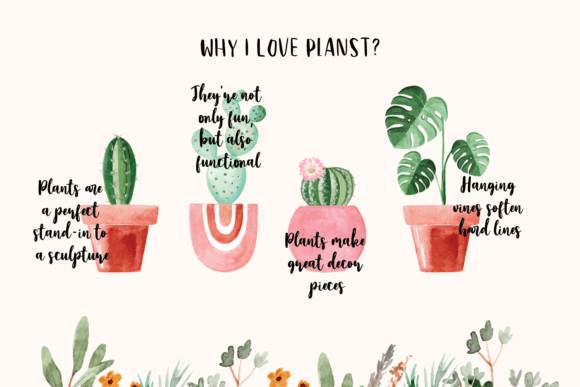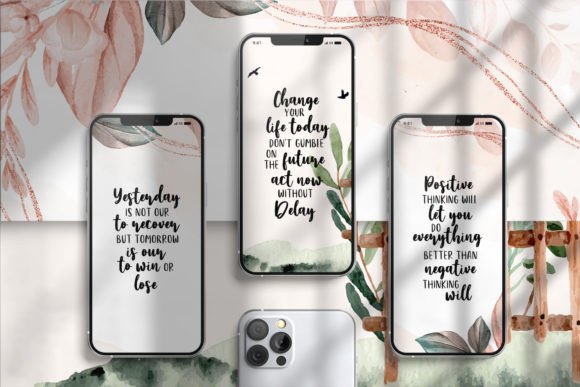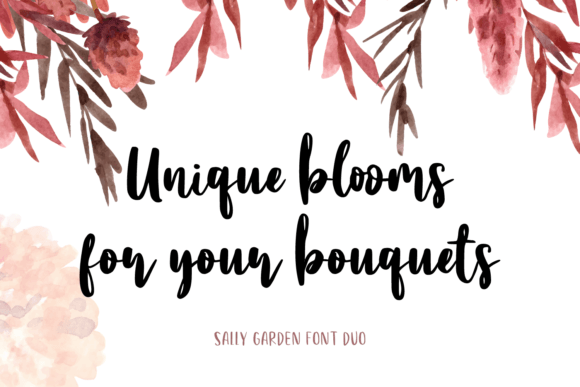
Introduction to Sally Garden Font
Sally Garden is a sweet handwritten font duo (script and sans).
It has beautiful and well-balanced characters and as a result, it matches a wide pool of designs Add it to your most creative ideas and notice how it makes them come alive.
Key Features of Sally Garden Font
Why Choose Sally Garden Font?